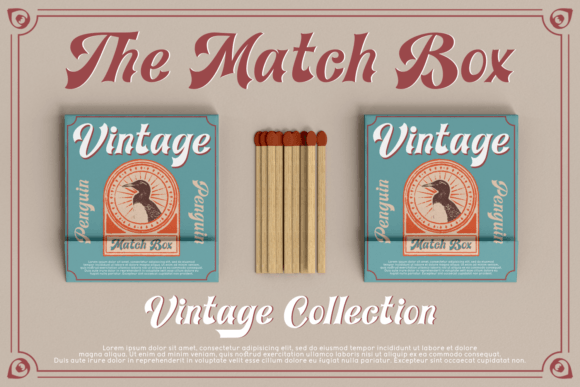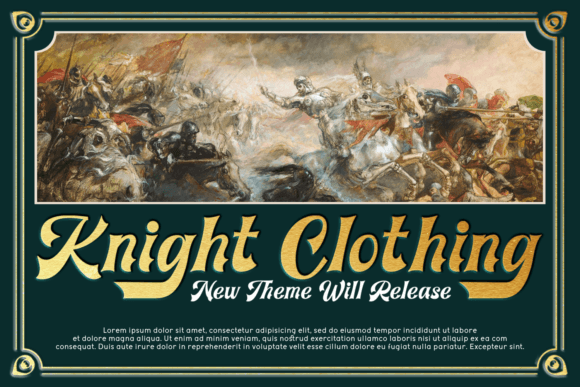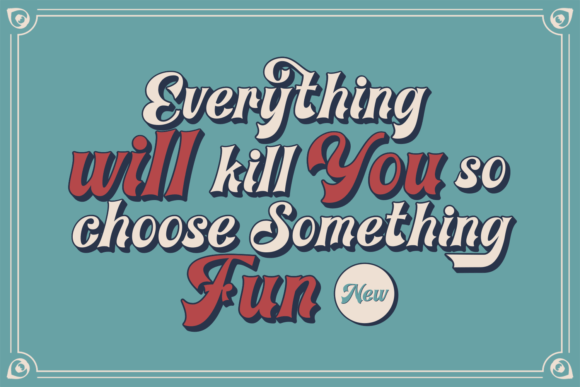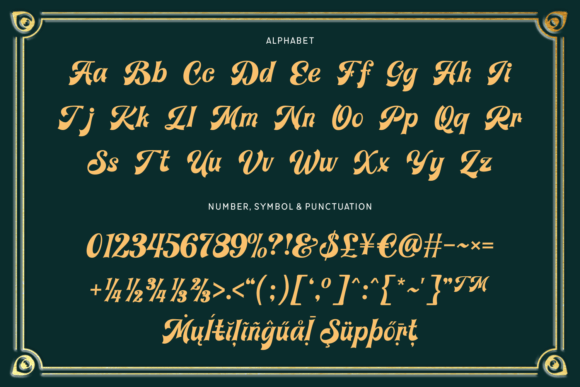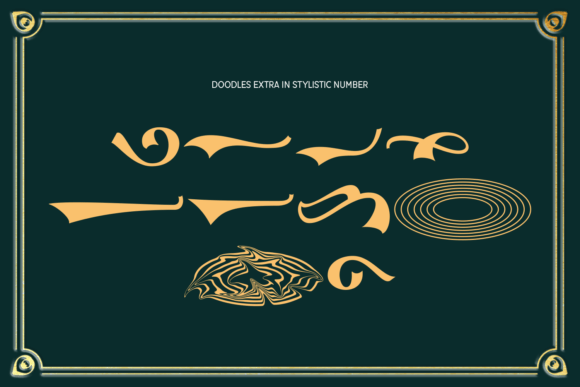
Introduction to Morelly Night Font
Have you ever been browsing through a vintage bookstore, surrounded by old novels and dusty photographs, and stumbled upon a font that instantly transports you back in time? That’s exactly what the Morelly Night Font does, with its bold and attractive design that screams old-school charm. Whether you’re working on a creative project or simply looking for a design resource to add some flair to your graphics, this retro display font is sure to be a game-changer.
With its sharp edges and sleek curves, the Morelly Night Font is perfect for designers who want to add a touch of nostalgia to their work. From posters to headlines, this font is sure to make your design stand out. And the best part? It’s available for free download, making it a valuable resource for designers of all levels. Plus, with its PUA encoding, you can access all the delightful glyphs and swashes effortlessly, giving you complete control over your design.
Key Features of Morelly Night Font
- Unique, elegant design perfect for creative projects and design resources.
- High-quality font with a transparent background, ideal for digital designs and print materials.
- Perfect for designers looking for a sophisticated and elegant font to elevate their creative project.
Honest Review: Morelly Night Font
As a designer, I’m always on the lookout for high-quality fonts to elevate my creative projects. Recently, I came across the Morelly Night Font, and I was excited to see how it would perform.
The Morelly Night Font is a free download, which is a definite plus. The design resource is perfect for anyone looking to add a touch of sophistication to their design work without breaking the bank. I was impressed with the transparent background, which made it easy to layer over images and create a cohesive look.
- ✨ High-quality design with a unique, elegant feel
- ✨ Wide range of applications, from logos to brochures
- ✨ Easy to customize and pair with other fonts
- ⚠️ Limited character set, which may not be suitable for extensive text-based projects
- ⚠️ Not ideal for use in small font sizes due to its delicate design
Overall, I’m impressed with the Morelly Night Font. While it may not be perfect for every project, it’s a great addition to any designer’s toolkit. With its high-quality design and transparent background, it’s a great choice for anyone looking to add a touch of elegance to their creative project.
Morelly Night Font is a high-quality design resource available for free download. Its transparent background and elegant style make it an ideal choice for various creative projects.
Tips for Getting the Most Out of Morelly Night Font
For optimal results, use Morelly Night Font in combination with other design elements that complement its elegant style. Experiment with different font sizes, colors, and arrangements to achieve a unique look.
Morelly Night Font is suitable for a variety of design projects, including:
- Marketing materials and advertisements
- Personalized gifts and decorations